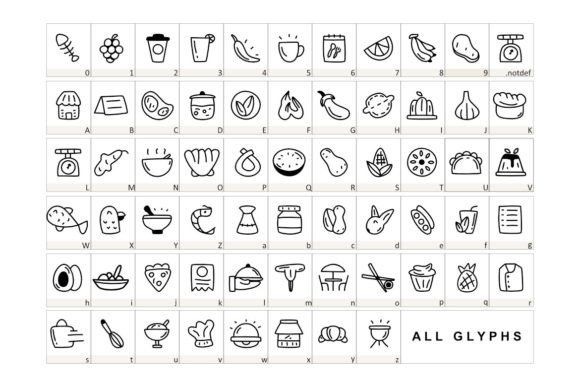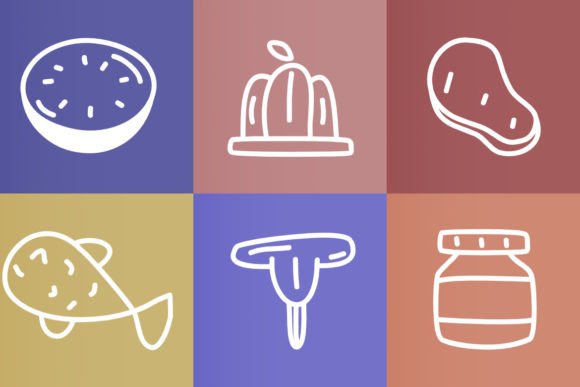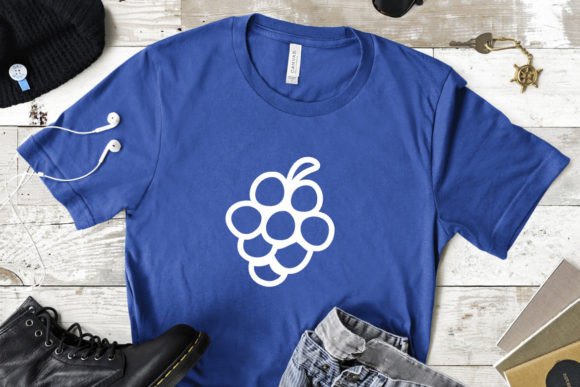
The Delicious Font: A Cute and Useful Dingbats Font for Your Creative Projects
Have you ever been in the middle of a design project, and suddenly, you just can’t seem to find the right font? I recall a particularly frustrating experience while working on a sticker design project for a client. The project required a playful, yet elegant feel, but no matter how hard I searched, I just couldn’t find the perfect font. That was until I stumbled upon the Delicious font. This adorable dingbats font has been a game-changer for me, and I’m excited to share my experience with you.
An Honest Review of Delicious Font
So, what makes the Delicious font so special? Let’s dive into the good stuff! ✨
- ✅ Cute and playful design: The Delicious font is perfect for projects that require a touch of whimsy and fun.
- ✅ Highly versatile: This font is suitable for a wide range of projects, including stickers, posters, t-shirts, cards, and apparel graphics.
- ✅ Easy to read: Despite its playful nature, the Delicious font is surprisingly easy to read, even at smaller sizes.
Of course, no font is perfect, and the Delicious font does have a few small quirks. 🤔
- ⚠️ Limited character set: As a dingbats font, the Delicious font has a limited character set, which may not be suitable for projects that require a wide range of characters.
- ⚠️ May not be suitable for body text: While the Delicious font is easy to read, it’s still a decorative font and may not be the best choice for body text.
The Backstory Behind Delicious Font
The Delicious font was designed by a talented type designer who’s passionate about creating unique and functional fonts. The story goes that the designer was inspired by the world of food and cooking, and wanted to create a font that captured the whimsy and playfulness of the culinary world. And so, the Delicious font was born! 🍰
| What is the Delicious font best used for? | The Delicious font is perfect for projects that require a playful, yet elegant feel, such as stickers, posters, t-shirts, cards, and apparel graphics. |
| Is the Delicious font easy to read? | Yes, the Delicious font is surprisingly easy to read, even at smaller sizes. |
| Is the Delicious font available in different styles? | Currently, the Delicious font is only available in one style. However, the designer may release additional styles in the future. |